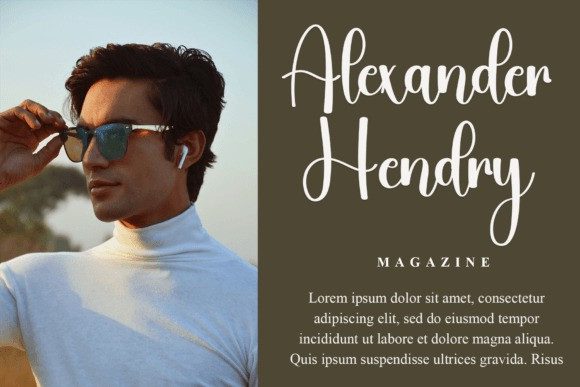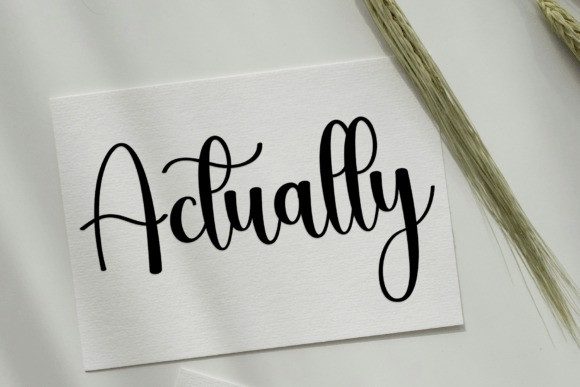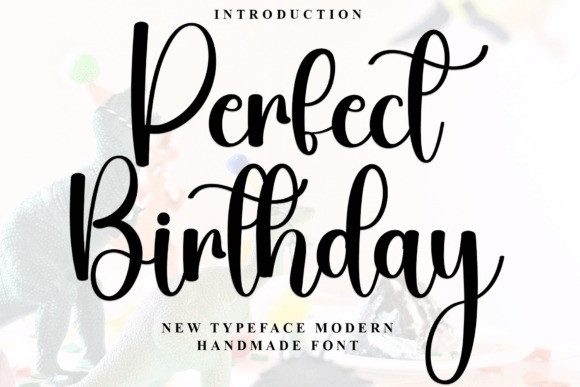
Perfect Birthday Script Font
Perfect Birthday Script Font is a lovely and timeless handwritten font. It is the best choice for creating eye catching logos, branding and quotes. Every letter has a unique and beautiful touch, which will make your design come alive!